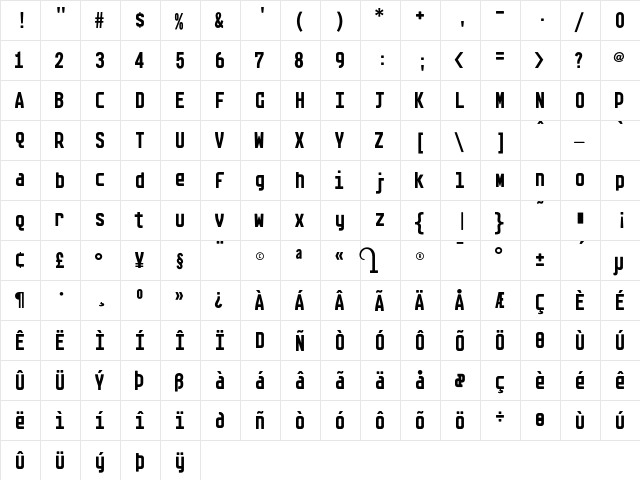
Arete Mono
Design Context for Arete Typeface
Arete brings the precise, column-aligned rhythm of monospaced typography to designs that value technical clarity and systematic order.
Well-suited to data-driven dashboards, coding tutorials, and any design that wants to reference the world of programming.
Pro Tip: Use Arete with slightly increased line-height for extended reading — fixed-width spacing can feel dense in longer passages without extra breathing room.